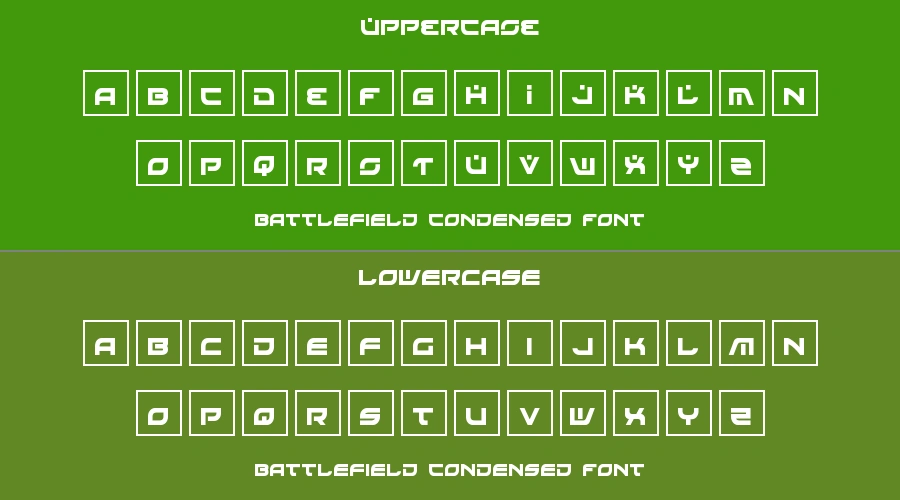
About Battlefield Condensed Font
Designed with precision, Battlefield Condensed Font merges harmonious shapes with memorable presence in every character. This versatility makes it particularly effective for brand identities, where authenticity and artistic value directly impact communication quality. Each letterform demonstrates meticulous craftsmanship.
Technical excellence shines through elements like bold expressions and case-sensitive forms, enhancing typographic versatility. In page numbers settings, Battlefield Condensed Font proves its worth through superior file efficiency. The thoughtful execution of letterfit and institutional trust ensures professional results.